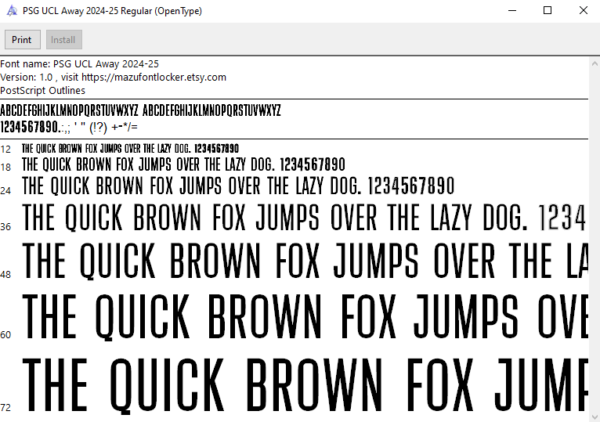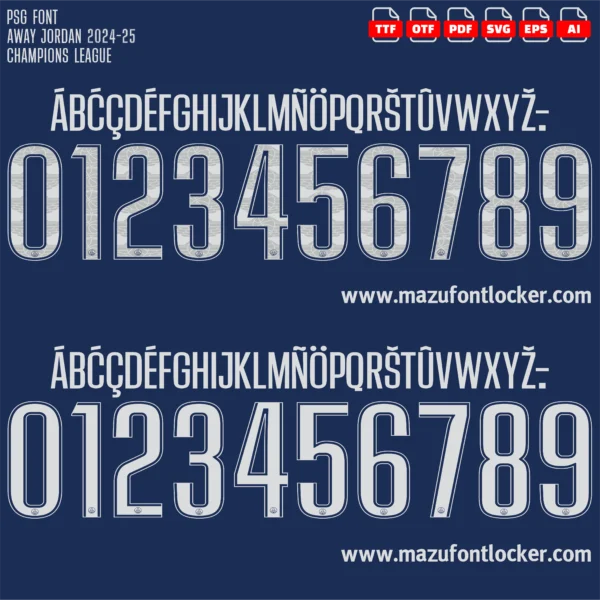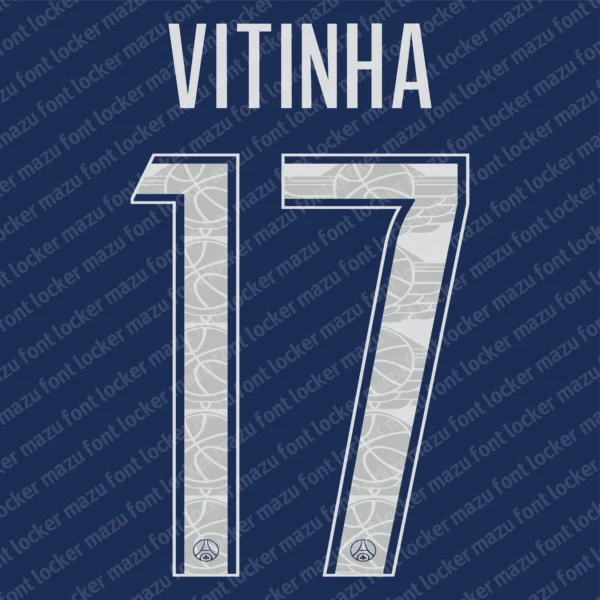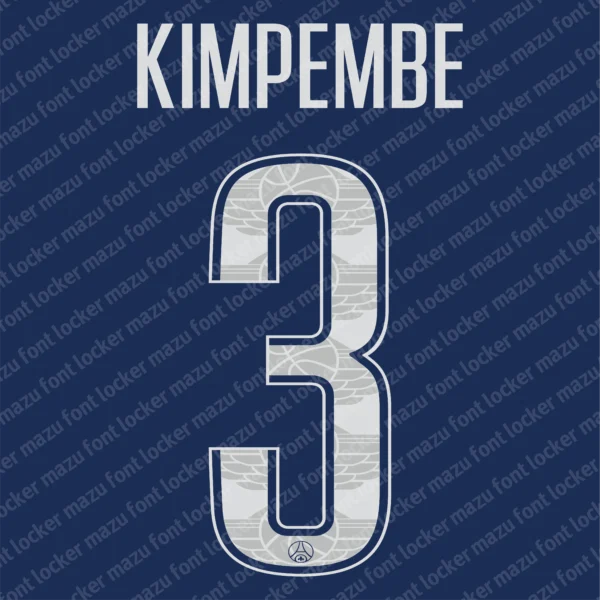
PSG UCL Jordan 2024-2025 Font Vector – Stunning Parisian Champions
This font captures the bold, precision-crafted lettering inspired by PSG’s iconic Parisian identity, legendary red-and-blue colors, prestigious Jordan collaboration, elite Champions League presence, and fearless French football spirit — delivering premium authenticity and explosive match-day energy for professional jersey mockups, football graphics, sports branding, fan designs, and high-end creative projects.
PSG UCL Jordan 2024-2025 Font Vector – Stunning Parisian Typeface
The PSG UCL Jordan 2024-2025 Font Vector is a premium football typeface designed to recreate the distinctive lettering associated with Paris Saint-Germain during the 2024-2025 UEFA Champions League campaign. Inspired by the bold and modern visual identity of PSG and its iconic Jordan collaboration, this high-quality vector font kit captures a stylish, athletic, and instantly recognizable football typography aesthetic.
Designed for professional graphic designers, football enthusiasts, jersey collectors, and passionate Paris Saint-Germain supporters, the PSG UCL Jordan 2024-2025 Font Vector delivers an authentic football-inspired appearance for creating realistic jersey mockups, custom football kits, match posters, social media graphics, squad designs, banners, merchandise concepts, and fan-made artwork. Every character has been carefully recreated to reflect the powerful and contemporary visual style associated with PSG’s European campaign.
Why Choose PSG UCL Jordan 2024-2025 Font Vector
This font stands out thanks to its precise vector construction, clean geometry, and distinctive football-inspired styling. Every letter and numeral has been meticulously recreated to deliver a professional typography aesthetic inspired by Paris Saint-Germain’s 2024-2025 UEFA Champions League campaign and its famous Jordan Brand partnership.
Whether you’re producing professional football kit templates, custom PSG jersey concepts, European football graphics, Champions League posters, or eye-catching football content, the PSG UCL Jordan 2024-2025 Font Vector delivers a genuine match-ready appearance inspired by the identity of one of Europe’s most recognizable football clubs.
The lettering featured in the PSG UCL Jordan 2024-2025 Font Vector combines bold geometric construction with clean modern proportions. The design reflects the contemporary football aesthetic associated with Paris Saint-Germain, the UEFA Champions League, and the club’s long-running connection with Jordan Brand.
The strong letterforms and balanced structure make this typeface suitable for football jerseys, squad graphics, matchday artwork, digital designs, promotional graphics, and custom fan projects.
The numerals feature balanced curves, sharp geometric details, and consistent spacing for excellent readability on football jerseys and digital media. Built entirely as scalable vectors, every number remains crisp and clear when used for jersey customization, posters, banners, print projects, social media graphics, and high-resolution football artwork.
PSG UCL 2024-2025 Season
The 2024-2025 UEFA Champions League campaign represents an important chapter in Paris Saint-Germain’s European football journey. The French club continued its pursuit of European success while showcasing its distinctive football identity on the continental stage.
The PSG UCL Jordan 2024-2025 Font Vector is inspired by the distinctive football typography and visual language associated with PSG’s Champions League campaign during the 2024-2025 season. Its modern construction makes it an excellent choice for designers creating custom jersey concepts, European football posters, squad graphics, matchday artwork, social media designs, and fan-made projects.